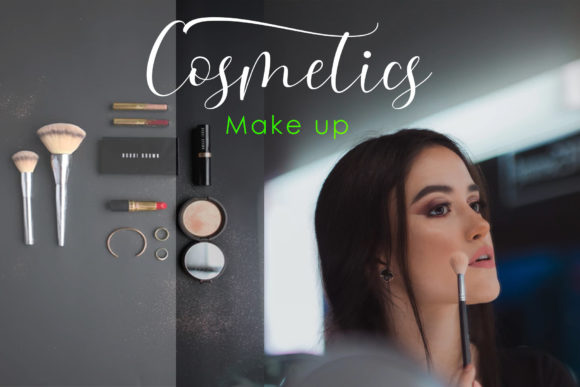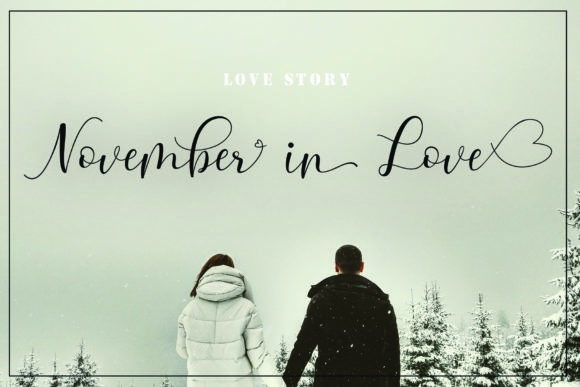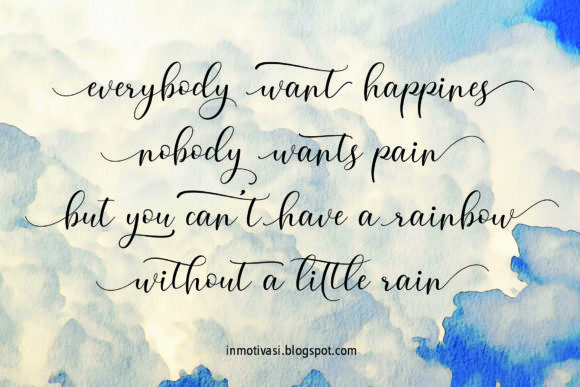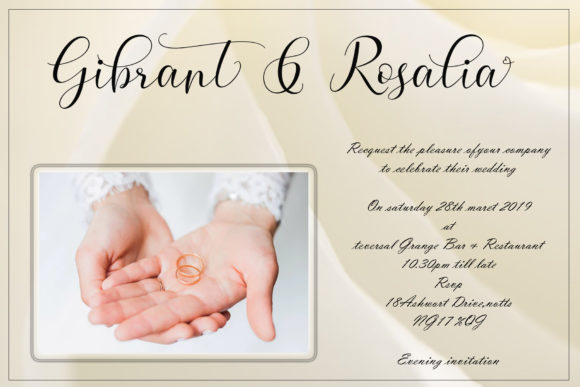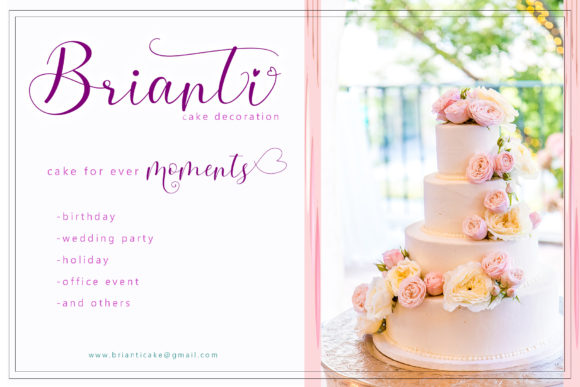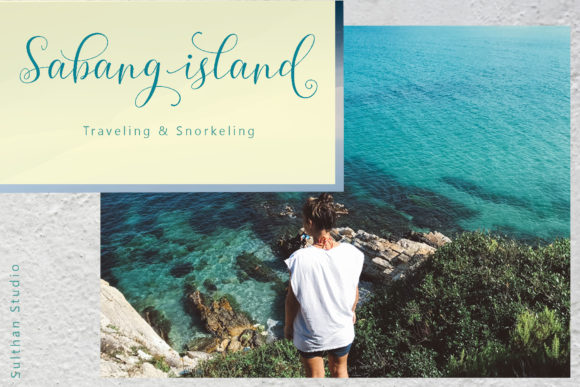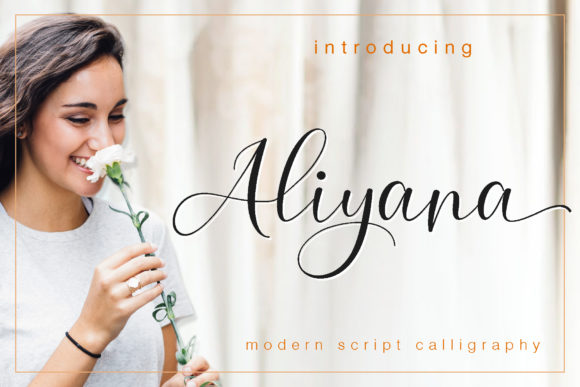
Introducing the Elegant Aliyana Script Font: Elevate Your Designs with a Touch of Sophistication
In the world of typography, few fonts manage to convey elegance and sophistication as effortlessly as the Aliyana Script Font. This beautiful, handmade calligraphy font has been making waves among designers and crafters alike, and for good reason. With its fluid strokes, intricate details, and classic charm, Aliyana is the perfect addition to any design project that demands a touch of luxury and refinement.
The Characteristics of Aliyana Script Font
The Aliyana Script Font is a true masterpiece of calligraphic artistry. Its elegant style is characterized by:
- Fluid Strokes: Aliyana’s strokes are smooth and flowing, giving the font a sense of movement and dynamism.
- Intricate Details: The font features intricate details and ornamentation, adding to its luxurious feel.
- Classic Charm: Aliyana’s classic design ensures that it remains timeless and versatile, suitable for a wide range of design applications.
Why Choose Aliyana Script Font?
So, why should designers and crafters choose Aliyana Script Font for their projects? Here are just a few compelling reasons:
- Elegance and Sophistication: Aliyana adds an upscale and chic touch to any design, making it perfect for high-end branding, packaging, and marketing materials.
- Versatility: The font’s classic design ensures that it can be used in a variety of contexts, from wedding invitations and stationery to fashion branding and advertising.
- Easy to Read: Despite its ornate details, Aliyana is surprisingly easy to read, making it a practical choice for body text as well as headlines.
Aliyana Script Font is a dream come true for designers and crafters who appreciate the beauty of handmade typography. Whether you’re working on a:
- Branding Project: Use Aliyana to create a luxurious and memorable brand identity.
- Wedding Invitation: Add a touch of elegance and romance to your wedding stationery with Aliyana.
- Fashion Design: Use Aliyana to create stunning fashion branding, packaging, and marketing materials.
- Crafting Project: Aliyana is perfect for crafters who want to add a personal touch to their DIY projects, such as handmade cards, gift tags, and scrapbooking.
Tips for Using Aliyana Script Font
To get the most out of Aliyana Script Font, here are a few tips to keep in mind:
- Use it Sparingly: Aliyana is a statement font, so use it sparingly to avoid overwhelming your design.
- Pair it with a Simple Font: Pair Aliyana with a simple, sans-serif font to create visual interest and balance.
- Experiment with Colors: Aliyana looks stunning in a range of colors, so don’t be afraid to experiment and find the perfect hue for your design.
| Font Name | Aliyana Script Font |
| Author | Sulthan Studio |
In conclusion, the Aliyana Script Font is a beautiful, handmade calligraphy font that adds an touch of elegance and sophistication to any design. With its fluid strokes, intricate details, and classic charm, Aliyana is the perfect choice for designers and crafters who want to create stunning, high-end designs. Whether you’re working on a branding project, wedding invitation, or crafting project, Aliyana is sure to impress.